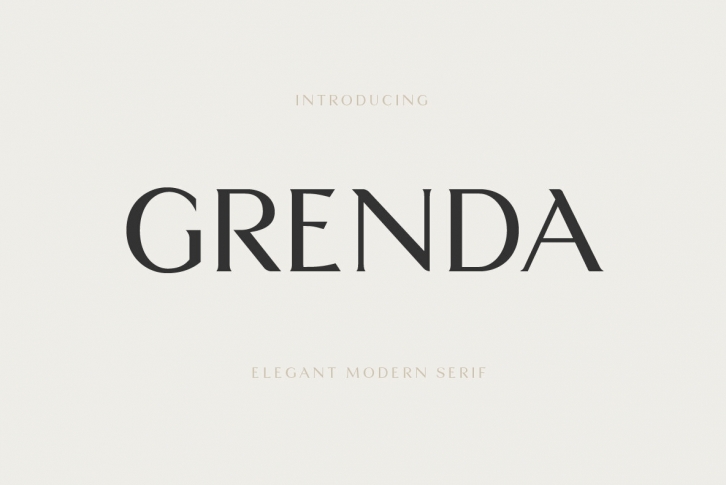
Grenda is the perfect font for anyone who wants to make their design stand out. This serif typeface has an elegant and modern look that will work well in logos, branding materials like headings or advertising posters but also on products such as packaging where you want something more sophisticated.